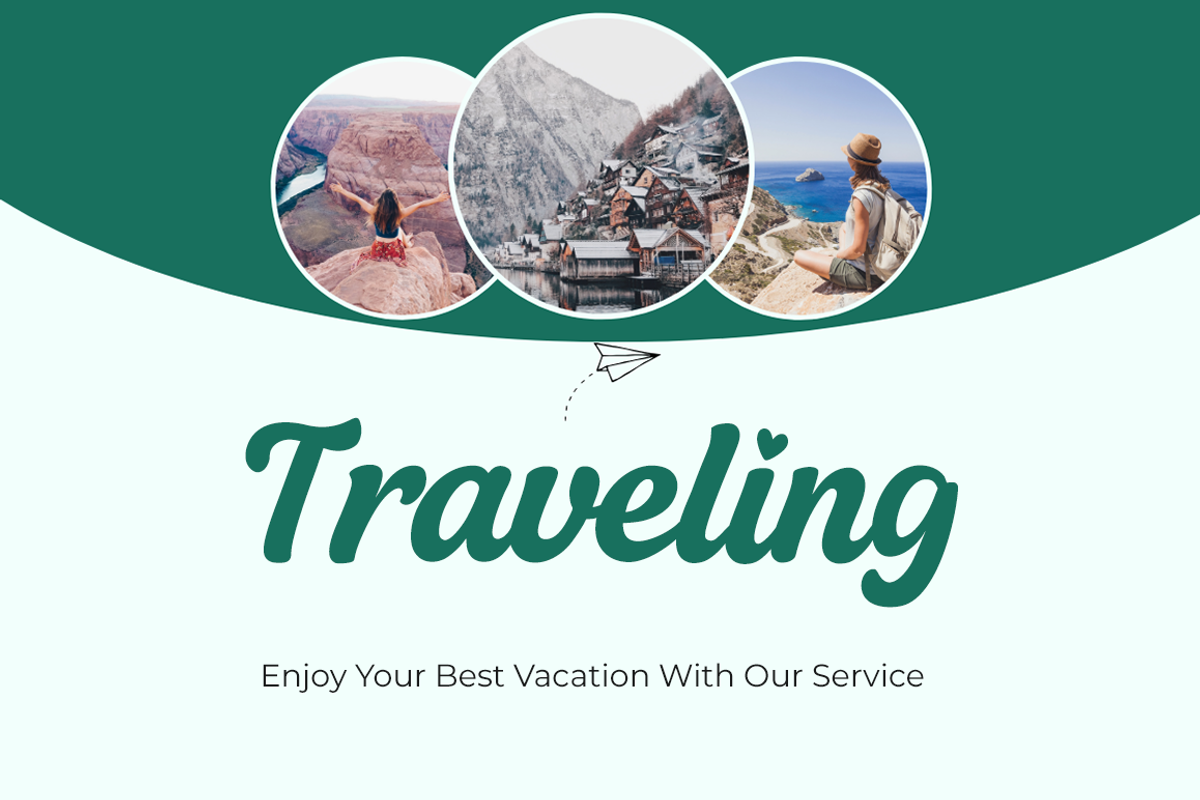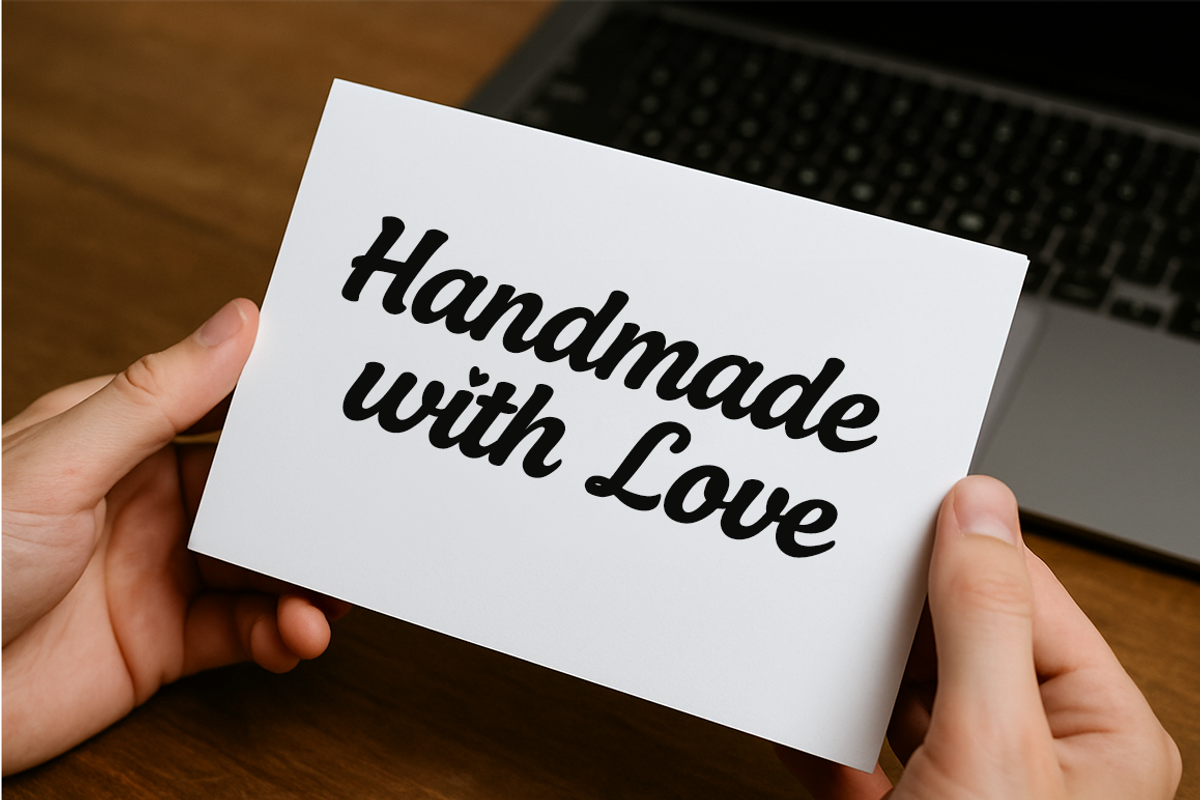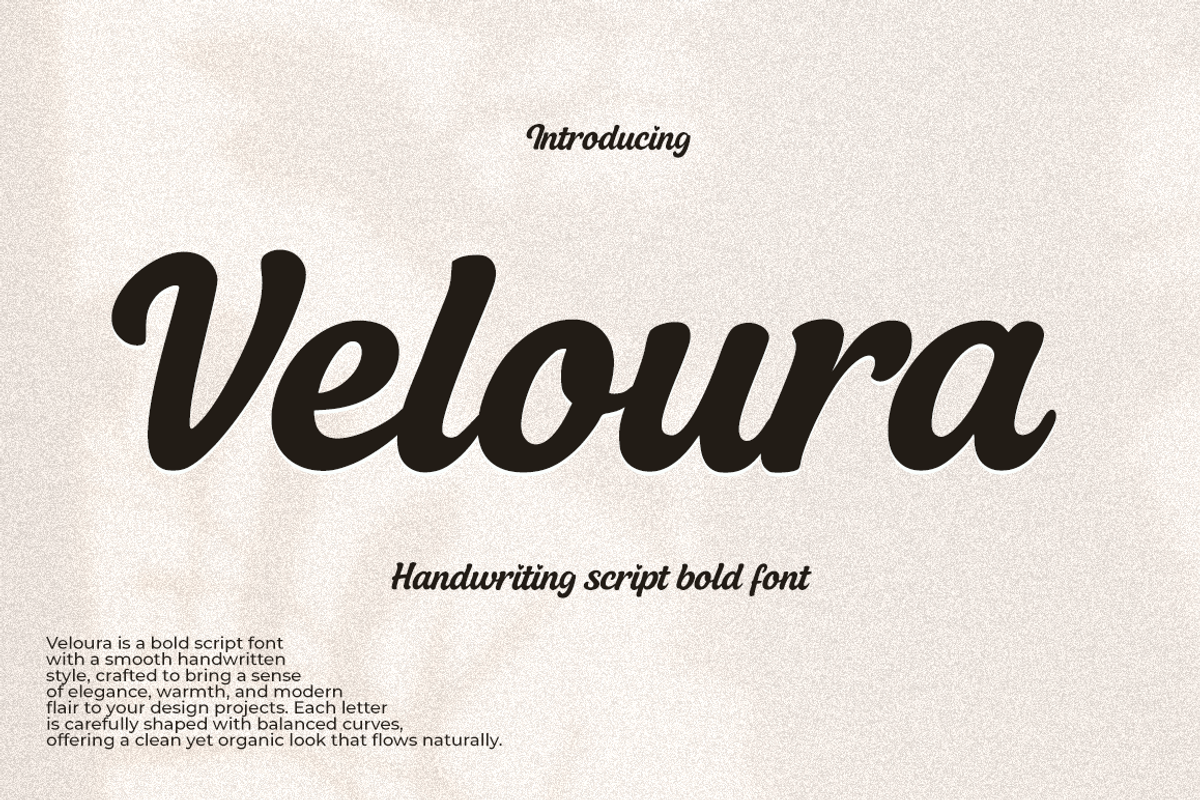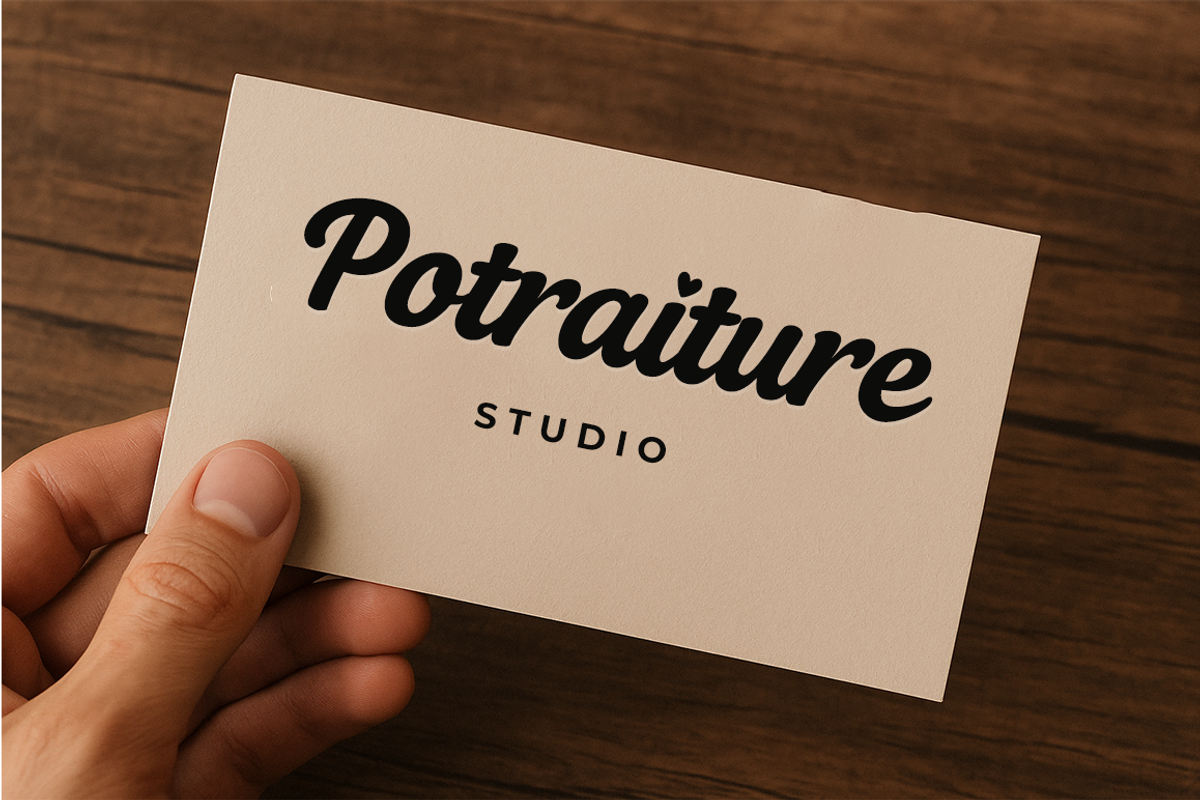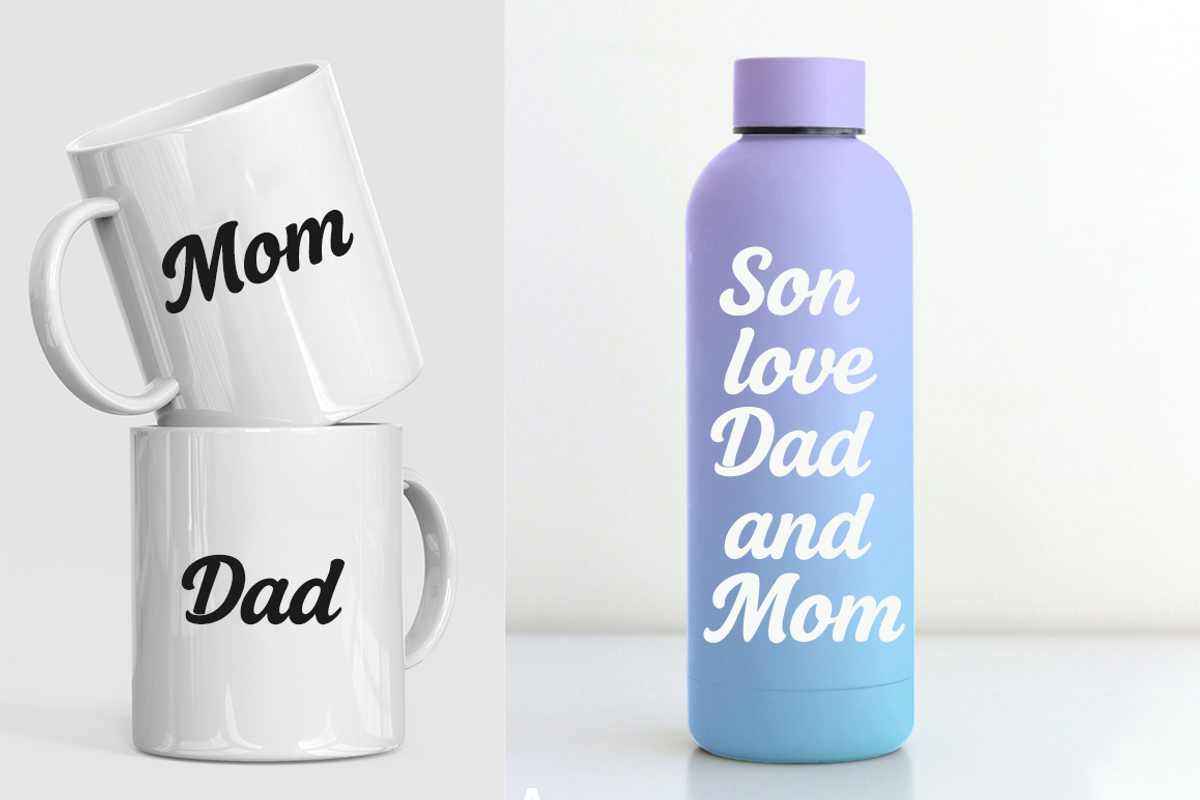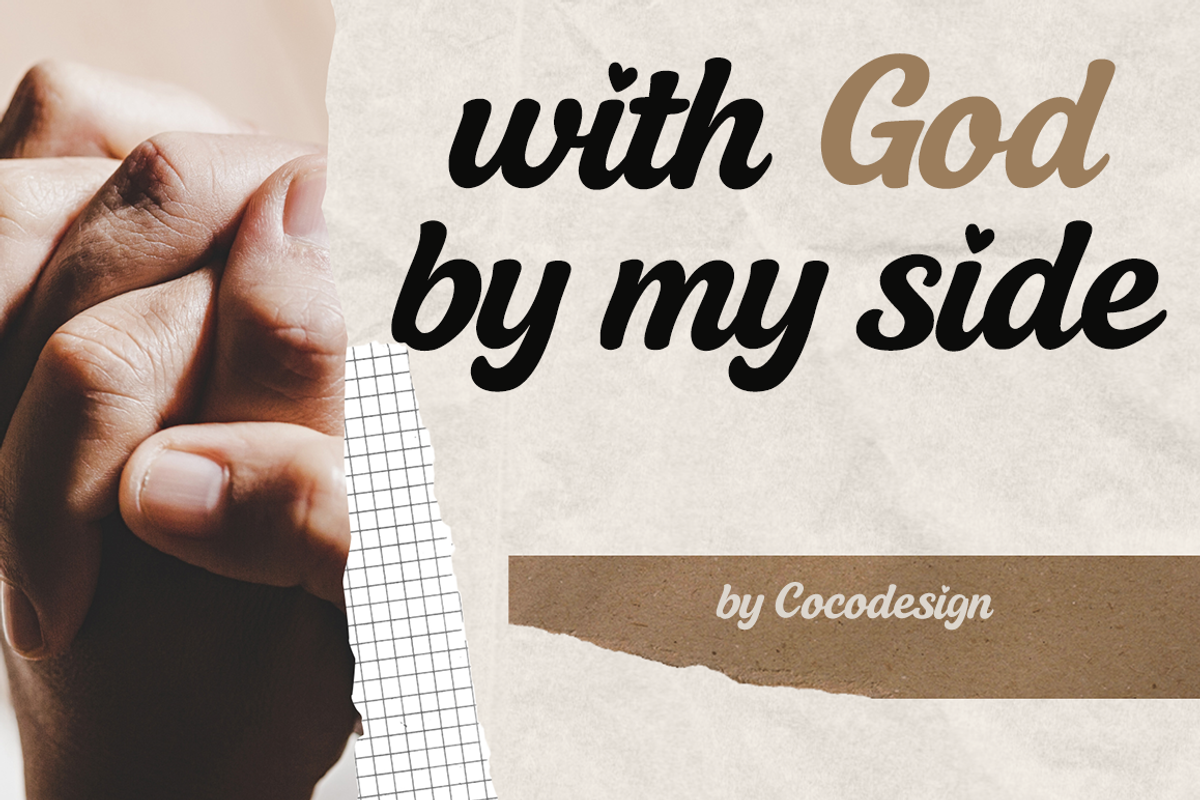
Veloura Bold font
Veloura is a bold script font with a smooth handwritten style, crafted to bring a sense of elegance, warmth, and modern flair to your design projects. Each letter is carefully shaped with balanced curves, offering a clean yet organic look that flows naturally.
Perfect for wedding invitations, branding, logos, packaging, and inspirational quotes, Veloura combines versatility with charm. Its connected letterforms and consistent stroke weight make it ideal for both display and decorative text.